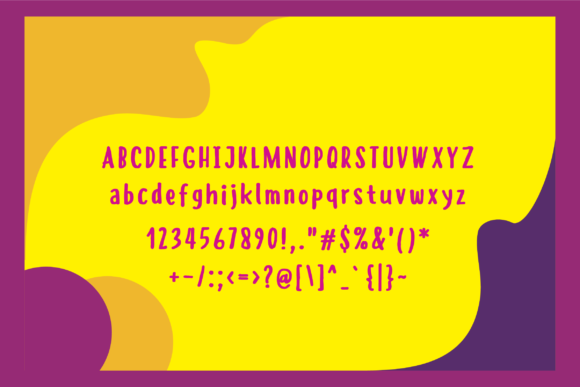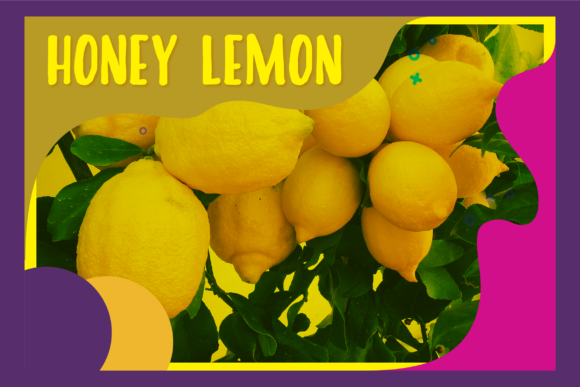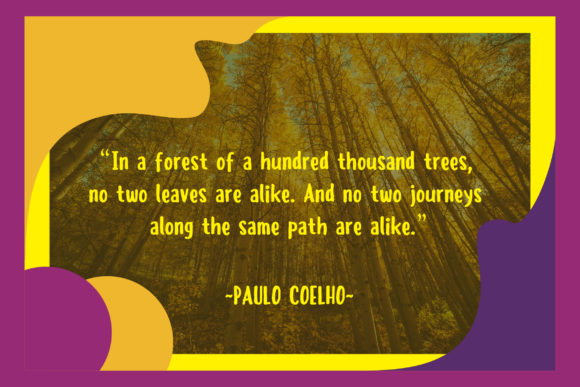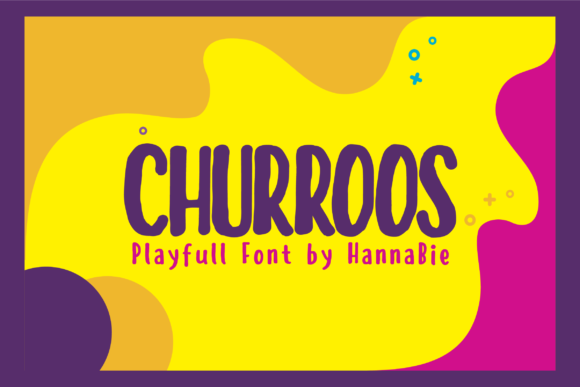
Introducing Churros Font: The Ultimate Display Font for Playful Designs
Are you tired of using the same old fonts in your designs? Look no further! Churros Font is here to add a dash of playfulness and uniqueness to your creative projects. This incredibly cute display font is sure to radiate life and energy into any design idea, making it perfect for designers and crafters alike.
The Charm of Churros Font
Churros Font is a one-of-a-kind display font that boasts a distinctive and charming style. Its unique design is reminiscent of sweet treats, making it an ideal choice for projects that require a touch of whimsy and fun. Whether you’re working on a logo, branding materials, or social media graphics, Churros Font is sure to make your design stand out from the crowd.
Key Features of Churros Font
- Unique and Playful Design: Churros Font features a distinctive and playful design that’s sure to capture attention.
- Cute and Whimsical: This font is perfect for projects that require a touch of cuteness and whimsy.
- Display Font: Churros Font is designed specifically as a display font, making it ideal for headlines, titles, and other prominent text elements.
- Easy to Read: Despite its playful design, Churros Font is easy to read, even at smaller sizes.
Churros Font is an excellent choice for designers and crafters who want to add a personal touch to their projects. Whether you’re creating:
- Logos and Branding Materials: Use Churros Font to create a unique and memorable brand identity.
- Social Media Graphics: Add a touch of playfulness to your social media graphics and make them stand out.
- Invitations and Party Decor: Churros Font is perfect for creating whimsical invitations and party decor.
- Crafting Projects: Use Churros Font to add a personal touch to your crafting projects, such as handmade cards and gift tags.
Tips for Using Churros Font
To get the most out of Churros Font, here are a few tips:
- Use it as a Display Font: Churros Font is designed specifically as a display font, so use it to make a statement.
- Pair it with a Simple Font: Pair Churros Font with a simple font to create visual interest and balance.
- Experiment with Colors: Churros Font looks great in a variety of colors, so don’t be afraid to experiment and find the perfect hue for your design.
In conclusion, Churros Font is an incredibly unique and cute display font that’s sure to add a touch of playfulness to any design idea. With its charming design, ease of use, and versatility, it’s perfect for designers and crafters alike. So why settle for ordinary fonts when you can make a statement with Churros Font?